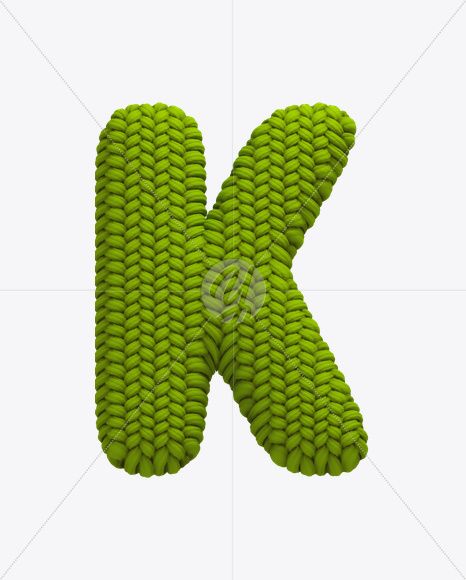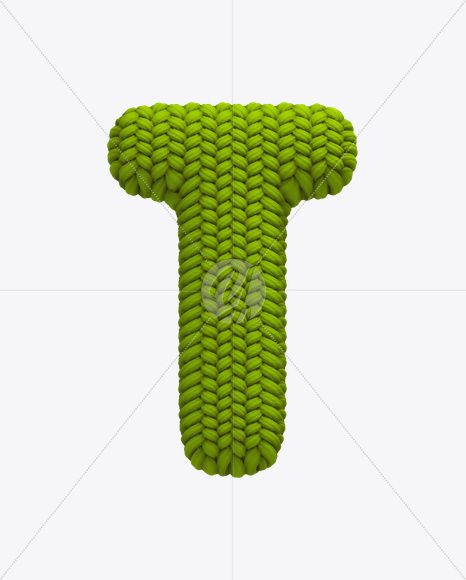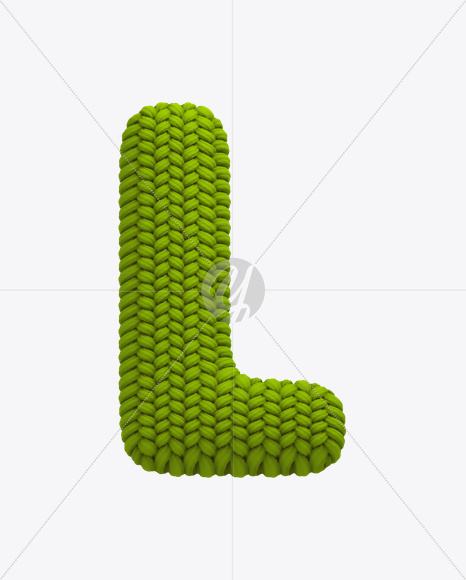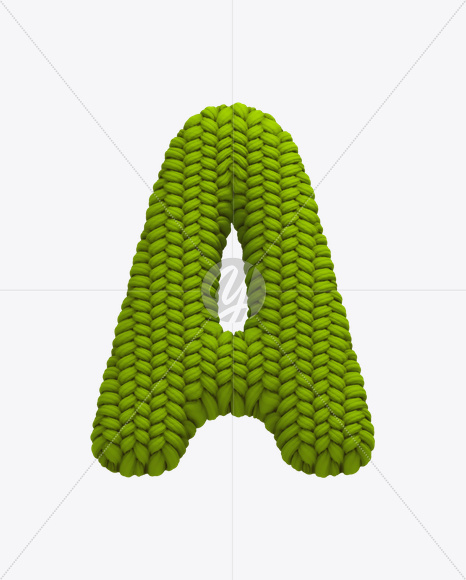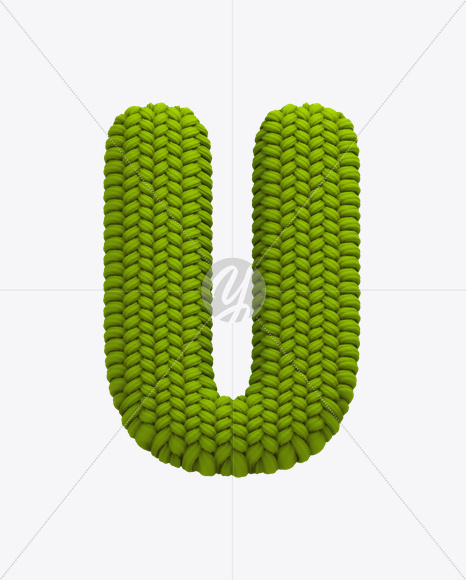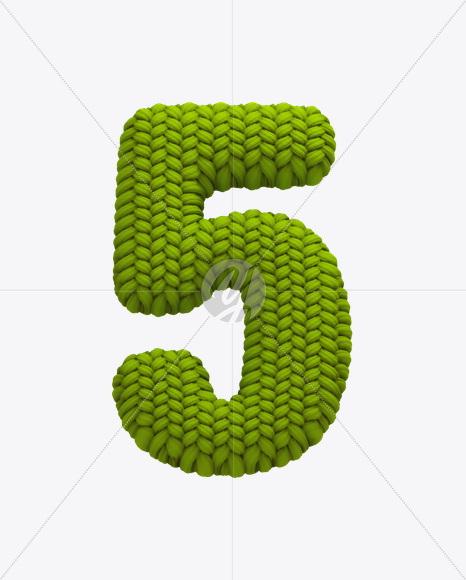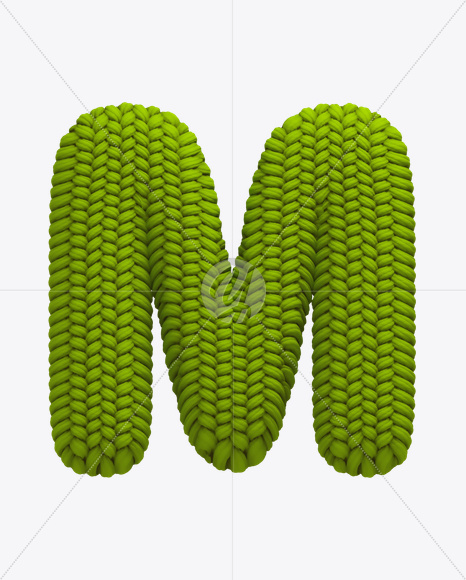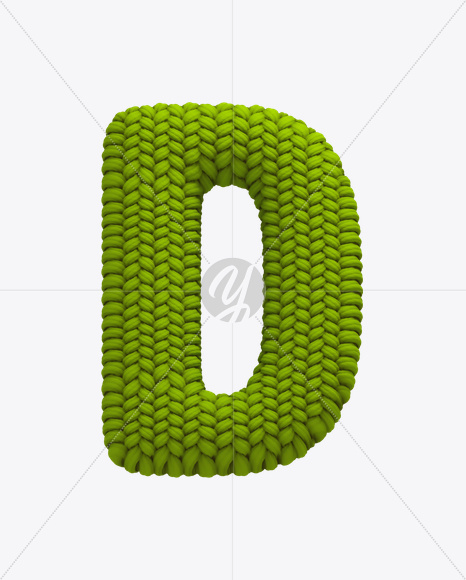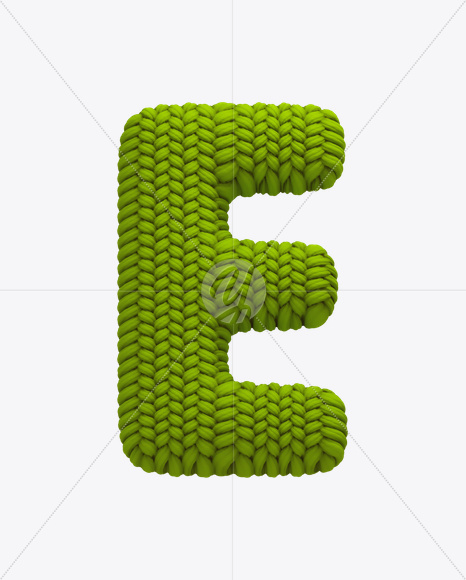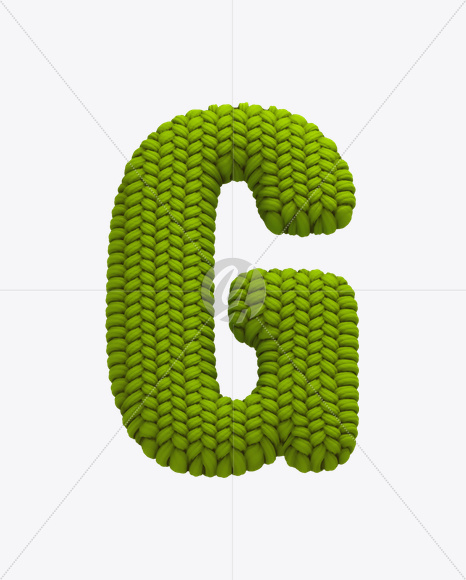
Enjoy Handmade Font Like Handmade Pullover
This handmade font can be compared to your favorite sweater: The Knitted Green Font is a woolen typeface that will make any design idea soft and sweet. Any project decorated with this warm alphabet will remind you of the best winter moments like holidays and the time spent near a fireplace. It’s easy to enjoy the handmade font because it calls you home.